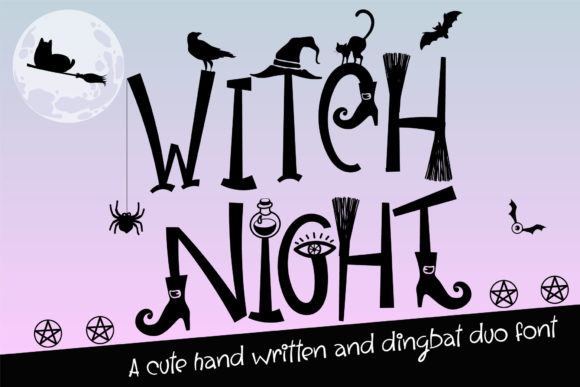
Journey into a realm of enchantment, where words dance with a touch of whimsy and a sprinkle of magic. Introducing Witch Night Font, a spellbinding creation by Nobu Collections, the master of typographic artistry. This enchanting font duo, comprising a captivating script and a collection of bewitching dingbats, invites you to unleash your creativity and cast a captivating spell on your designs.
Picture yourself conjuring breathtaking Halloween invitations, where Witch Night's delicate curves and enchanting swashes weave an aura of mystery and charm. Imagine the spine-tingling horror movie posters you'll conjure, where Witch Night's eerie elegance sends shivers down the spines of your audience. Unleash your inner artist and let Witch Night's magic seep into every corner of your designs.
With Witch Night Font, the possibilities are as limitless as your imagination. Cast a spell on your t-shirts, adding a touch of spooky charm to your wardrobe. Transform ordinary mugs into cauldrons of creativity, where every sip of coffee or tea becomes a magical elixir. Let Witch Night's magic seep into your home décor, adorning walls with captivating quotes and enchanting artwork.
With its ability to transport your audience to a world of enchantment, Witch Night Font is the perfect choice for those seeking to leave a lasting impression. Its versatility knows no bounds, beckoning you to explore endless creative possibilities. Whether you're a seasoned designer or just starting your typographic journey, Witch Night Font is your magic wand, ready to unlock a world of captivating designs.
Dare to embrace the allure of Witch Night Font, and let your creativity take flight. Dive into a world where words dance with delight, where every design tells a story, and where your imagination becomes the canvas upon which magic unfolds. Embrace the enchantment, and let Witch Night Font cast its spell on your designs today!